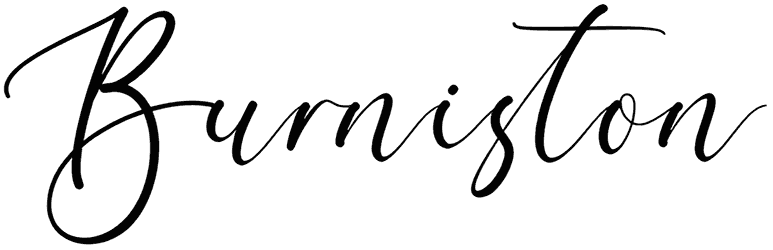
Burniston Font
Fashion texts are usually written with fancy-looking fonts, and Burniston can emphasize the uniqueness of any brand. It is a classy script font with curly and thin elements that convey a calming and elegant look to the reader.
You can also use this script font for any cosmetic product, book, movie titles, retro play flyers, and invitation cards. The letters will take a continuous form when written together.